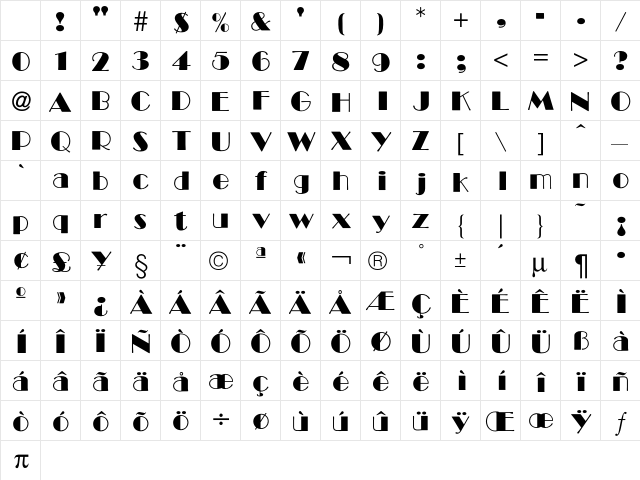
Complete Broadway Medium glyph index. Displaying only characters natively supported by Broadway Medium font.
Broadway is a composed and adaptable typeface that performs quietly and consistently across a wide range of design contexts.
Who designed the Broadway Medium font?
This font was published by Image Club Graphics, Inc. Check the technical specs section for copyright and designer details.